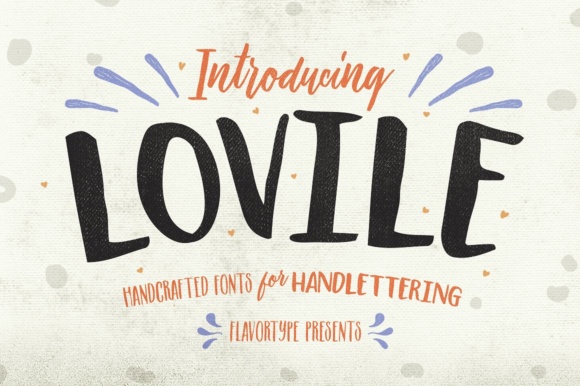
**Unleash the Creative Spirit with Lovile Font: A Typographic Journey to Handcrafted Elegance**
Immerse yourself in the captivating realm of Lovile Font, a meticulously designed display font that embodies the essence of irregularity and hand-lettered artistry. Inspired by the whimsical spirit of calligraphy, Lovile transforms your digital creations into vibrant canvases adorned with the beauty of human touch.
With its innate charm and versatility, Lovile seamlessly blends with other fonts, inviting you to explore limitless creative possibilities. Its irregular strokes dance across the page, adding a touch of warmth and personality to your designs.
From captivating headlines to enchanting invitations, Lovile's presence elevates every project with an air of elegance and authenticity. Whether you're a seasoned designer or a budding enthusiast, this font will ignite your imagination and inspire you to create captivating visuals that resonate with your audience.
**Embrace the Art of Irregularity**
Lovile's genius lies in its departure from conventional symmetry. It embraces the beauty of imperfection, inviting you to revel in the unique charm of handcrafted typography. Its intentional irregularities mimic the subtle nuances of human handwriting, lending a touch of authenticity to your designs.
**Endless Creative Opportunities**
Lovile is a veritable chameleon, effortlessly adapting to a myriad of design styles. Its versatility knows no bounds, making it perfect for a wide range of projects, including:
- **Website Headers:** Capture attention with bold and captivating headlines that draw visitors into your digital realm.
- **Social Media Graphics:** Elevate your social media presence with visually stunning images that stand out from the crowd.
- **Invitations and Announcements:** Craft personalized invitations and announcements that exude warmth and elegance.
- **Branding and Logo Design:** Establish a unique and memorable brand identity that reflects your vision and values.
- **Packaging and Product Design:** Transform ordinary packaging into works of art, enhancing the perceived value of your products.
**Experience the Transformative Power of Handcrafted Typography**
Lovile Font is more than just a collection of letters; it's a gateway to a world of boundless creativity. Its irregular strokes and captivating charm will inspire you to create designs that connect with your audience on an emotional level.
So why settle for ordinary fonts when you can unleash the transformative power of Lovile? Embark on a typographic journey today and discover the endless possibilities that await you in the realm of hand-lettered elegance.